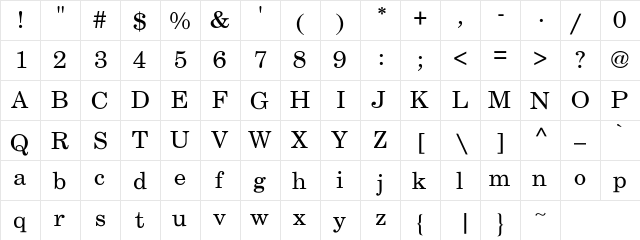
NewCenturySch 3 Regular
Design Context for NewCenturySch 3 Typeface
NewCenturySch 3 offers clean, dependable letterforms without strong stylistic allegiance, making it a practical choice for designers who need flexibility.